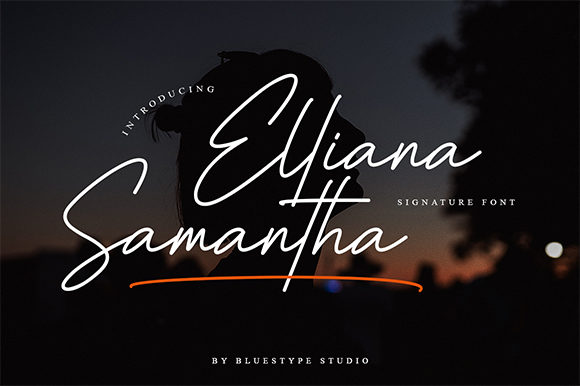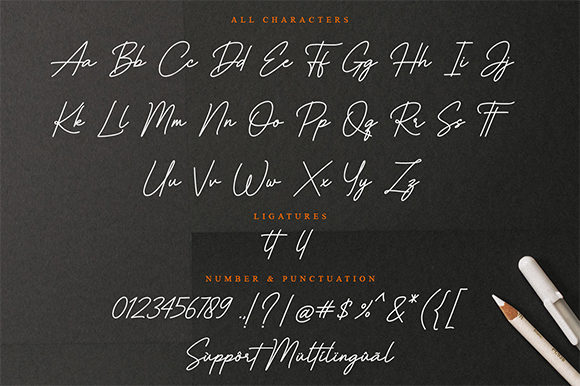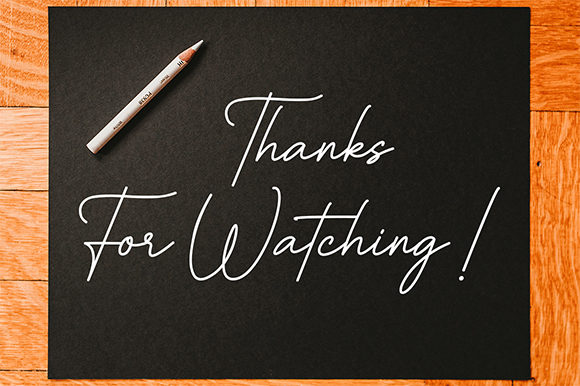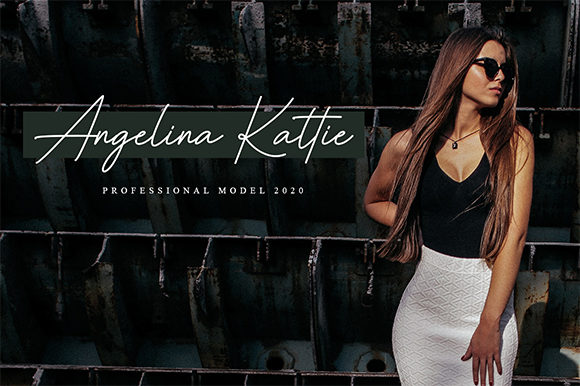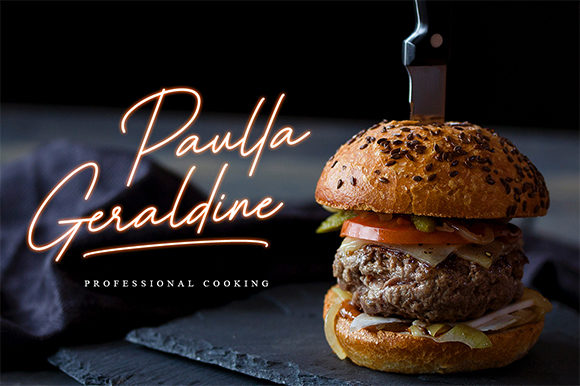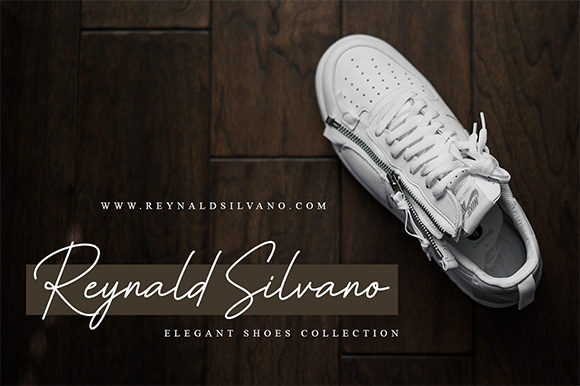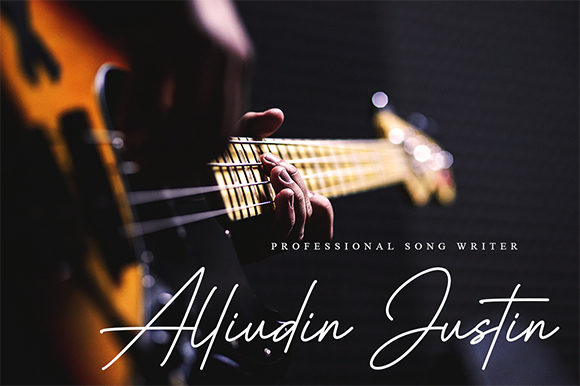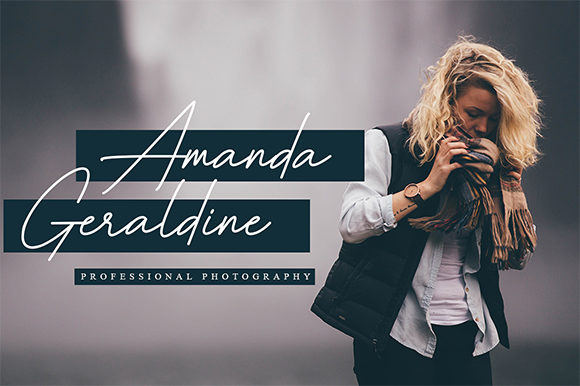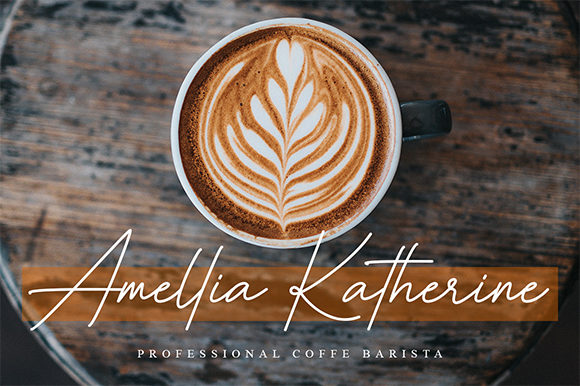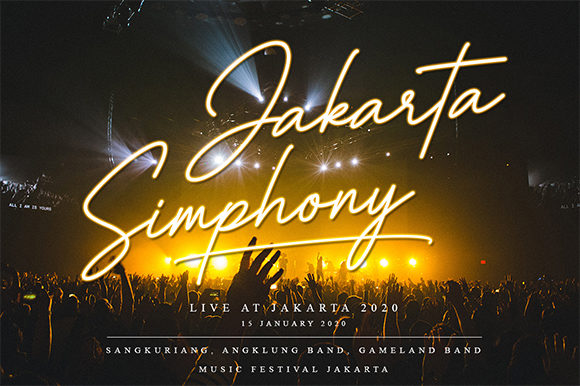
HomeScript FontsElliana Samantha Font Script Fonts Elliana Samantha Font FacebookXPinterestWhatsApp Elliana Samantha Font Poster 2 Elliana Samantha Font Poster 3 Elliana Samantha Font Poster 4 Elliana Samantha Font Poster 5 Elliana Samantha Font Poster 6 Elliana Samantha Font Poster 7 Elliana Samantha Font Poster 8 Elliana Samantha Font Poster 9 Elliana Samantha Font Poster 10 Elliana Samantha Font Poster 11 About Elliana Samantha Font Elliana Samantha is a stunning signature font with a cool twist. Get inspired by its modern simplicity! DOWNLOAD ON CREATIVE FABRICAThis font is sold and delivered by Creative Fabrica. Font Canyon may earn a commission if you buy through this link. People also explored Wooden Board Font Athelred Font Holliday Font Selyna Avelyn Font Dancings Font Tokyo Font Felichiya Collection Font Asphalt Bella Canvas 3001 Mockup T Shirt My Floral Font 299 0 TagsElliana Samantha Font Previous articleMy Heart FontNext articleCaroline Amanda Font LEAVE A REPLY Cancel reply Comment: Please enter your comment! Name:* Please enter your name here Email:* You have entered an incorrect email address! Please enter your email address here Website: Save my name, email, and website in this browser for the next time I comment. Personal Use Free Sheiloria Personal Use Free Read more about this font Covelia Personal Use Free Read more about this font Market Love Personal Use Free Read more about this font Heart Memory Personal Use Free Read more about this font BLOG Elegant Wedding Invitation Fonts – Handwritten & Script Fonts Elegant Wedding Invitation Fonts Your wedding day is one of the most important moments of your life, and every detail matters—including your invitation design. Our... To increase your work productivity, choose the most readable fonts. Free Fonts Risk: Why Free Fonts Can Be Dangerous for Designers Best Fonts for YouTube Videos: Make Your Thumbnails Stand Out